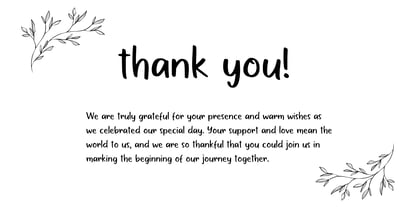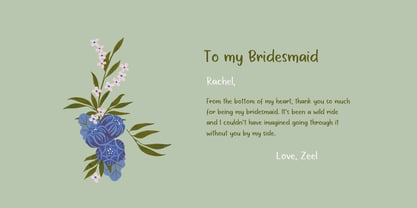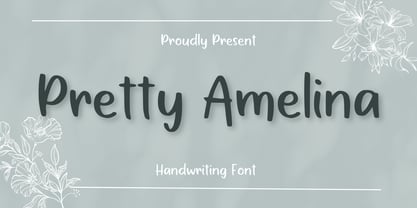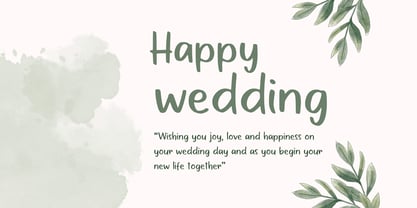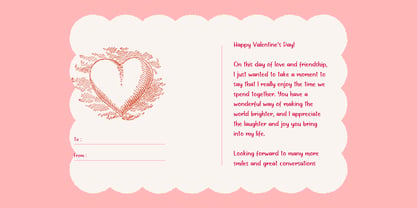
Pretty Amelina
by Aisyah
The Pretty Amelina Font Family was designed by Nur Aiysah Amalia and published by Aisyah. Pretty Amelina contains 1 styles. More about this family
Pretty Amelina is a cute and beautiful handwriting font designed with a natural and charming handwritten style. This font brings a sweet, playful, and elegant touch that makes every design look more personal and creative. Perfect for crafting projects, DIY creations, invitations, greeting cards, branding, social media posts, quotes, stickers, packaging, and other creative projects. With its smooth and stylish handwritten look, Pretty Amelina is a great choice for anyone who needs a lovely and versatile font for both personal and commercial designs.
Designers: Nur Aiysah Amalia
Foundry: Aisyah